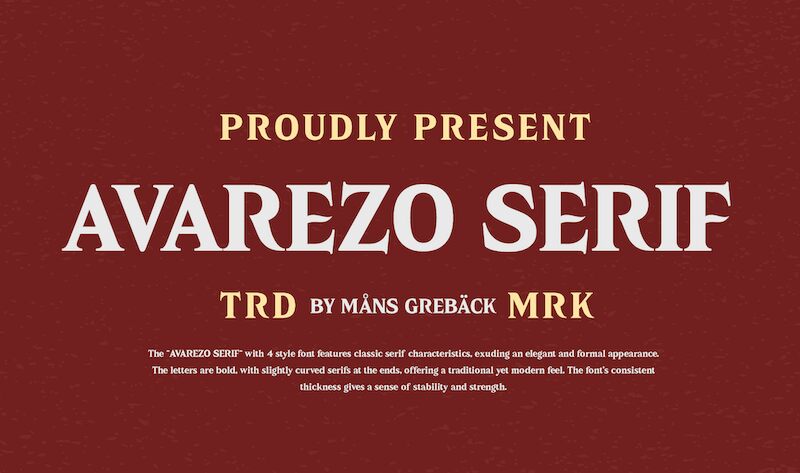
Avarezo Serif font by Mans Greback captures a strong and commanding presence with its bold and classic essence. This modern typeface presents an elegant, yet assertive appearance through distinctive curves and legible characters. Avarezo stands out wherever applied, written small or big in impactful contexts or otherwise.
Enjoy its usefulness and beauty by integrating the font into posters, titles, headlines, logos, stationery designs, book/magazine covers, business cards, typography art designs, greeting cards among other projects.